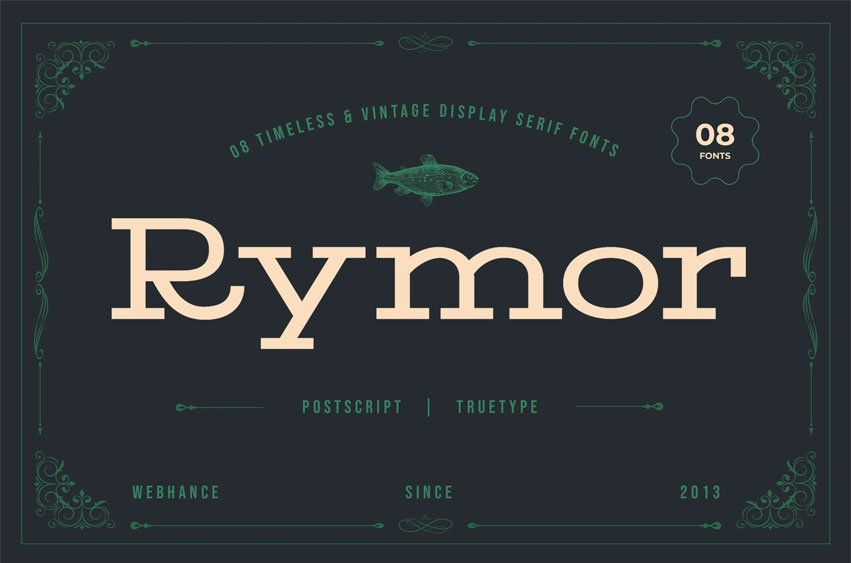
Rymor Font is a vintage-inspired serif typeface that channels timeless elegance, nautical spirit, and refined craftsmanship. Designed with sharp slab serifs and smooth curves, Rymor blends classical balance with a fresh identity—perfect for projects that demand character and clarity. Whether you’re designing book covers, brand identities, labels, or editorials, this font family offers eight styles to suit every creative direction.
With 04 timeless serif variants & 08 fonts, Rymor brings consistency, structure, and storytelling power to your work. Its adaptability shines across luxury branding, packaging, signage, magazines, and digital media. Each variant has been carefully built to maintain visual harmony while offering a unique tone, making it an essential companion for professional designers.
Beyond appearance, Rymor was created for real-world usability. Every detail is designed with purpose—delivering precision in layout, readability, and modern functionality. Whether you’re crafting headlines or detailed typographic compositions, Rymor provides both vintage charm and professional polish.